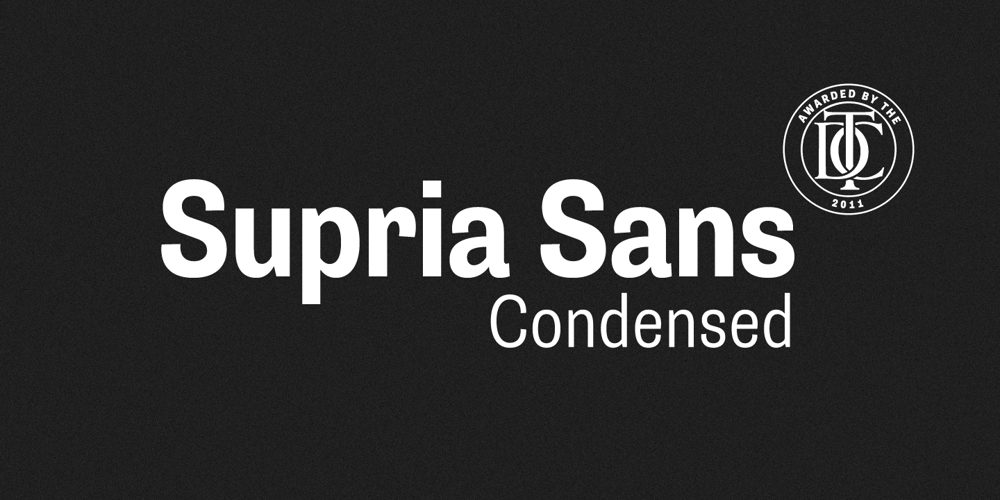
Supria Sans Condensed
Supria Sans Condensed font
Supria Sans Condensed Font Family was designed by Hannes von Döhren and published by HVD Fonts. Supria Sans Condensed contains 18 styles and family package options. Beside Supria Sans™, the condensed version is the second component of the Supria type system. Encompassing the same six weights and three styles as Supria Sans, and characterised by the same approach to the modernist source material, this condensed set of fonts is 20% narrower than the normal version, allowing for significant space saving economies. Used together, Supria Sans and Supria Sans Condensed become much more than just a versatile and functional workhorse – ideal for resolving complex design issues with elegance and sophistication. Supria Sans Condensed™ is equipped for complex, professional typography. As an exclusively OpenType release, these fonts feature small caps, five variations of numerals, arrows and an extended character set to support Central and Eastern European as well as Western European languages.